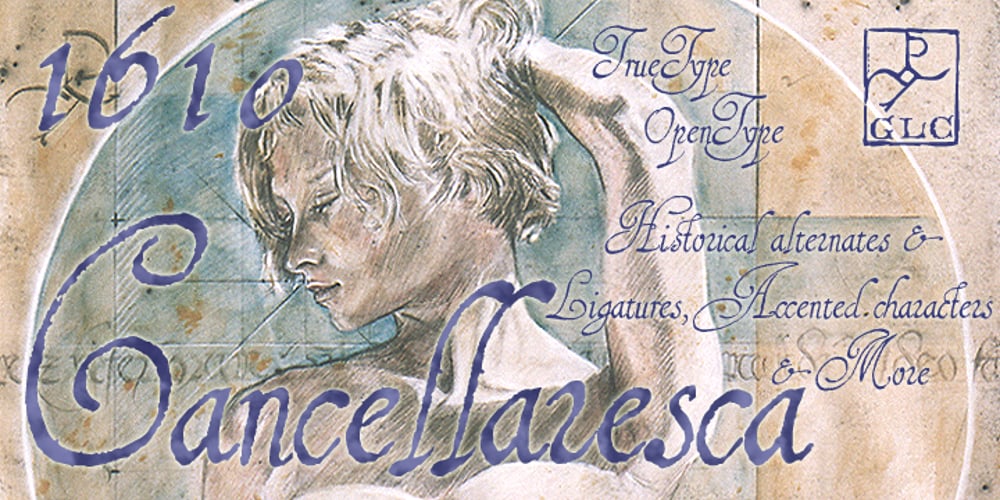
1610 Cancellaresca Font Family was designed by published by GLC. 1610 Cancellaresca contains 1 styles and family package options. This font was inspired by the “Cancellaresca moderna ” type, which was calligraphed by Francesco Periccioli (published in 1610 in Siena, Italy). It was entirely handwritten by the designer for each circumstance, using quill pen and medieval ink on a rough paper, with added characters as accented ones and a lot of ligatures with respect for the original design. This font includes “long s” and also a lot of ligatures as “ff”, “ffi” “fij” “pp”… It can be used for web-site titles, posters and flier designs, editing ancient texts or greeting cards, or as a very decorative and elegant font. This font retains its qualities and beauty over a wide range of sizes.